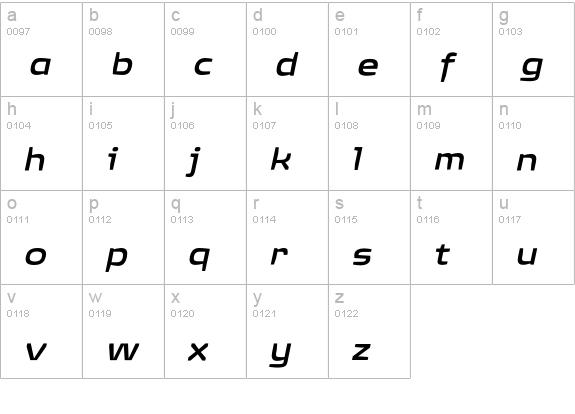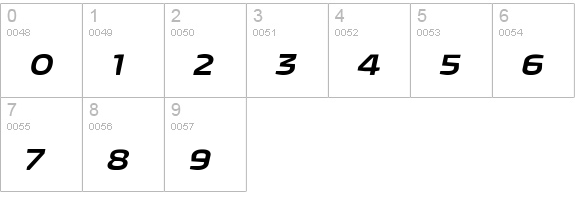
Quagmire-MediumExtendedItalic font is a masterpiece that combines elegance and versatility. With its unique, slanted design, this font exudes a sense of sophistication and charm. The medium weight adds a touch of professionalism, making it perfect for a wide range of projects. This font's extended italic style adds a subtle twist to the classic italic look, giving your designs a modern and contemporary feel. Whether you're creating logos, headlines, or body text, Quagmire-MediumExtendedItalic font will captivate your audience and leave a lasting impression. One of the key highlights of this font is that it is available for free! You can easily download it at FontsMarket.com, a trusted source for high-quality fonts. With Quagmire-MediumExtendedItalic font, you don't have to compromise on quality or pay a hefty price. It's the perfect choice for both personal and commercial projects. The versatility of Quagmire-MediumExtendedItalic font is truly remarkable. Its legibility and readability make it suitable for a variety of applications, from print materials like brochures and magazines to digital platforms such as websites and social media graphics. Its clean lines and balanced proportions ensure that your message is conveyed with clarity and impact. Whether you're a professional designer or an aspiring creative, Quagmire-MediumExtendedItalic font will become your go-to choice. Its timeless appeal and effortless grace will elevate your designs to new heights. So why wait? Download this amazing font for free at FontsMarket.com and let your creativity soar.